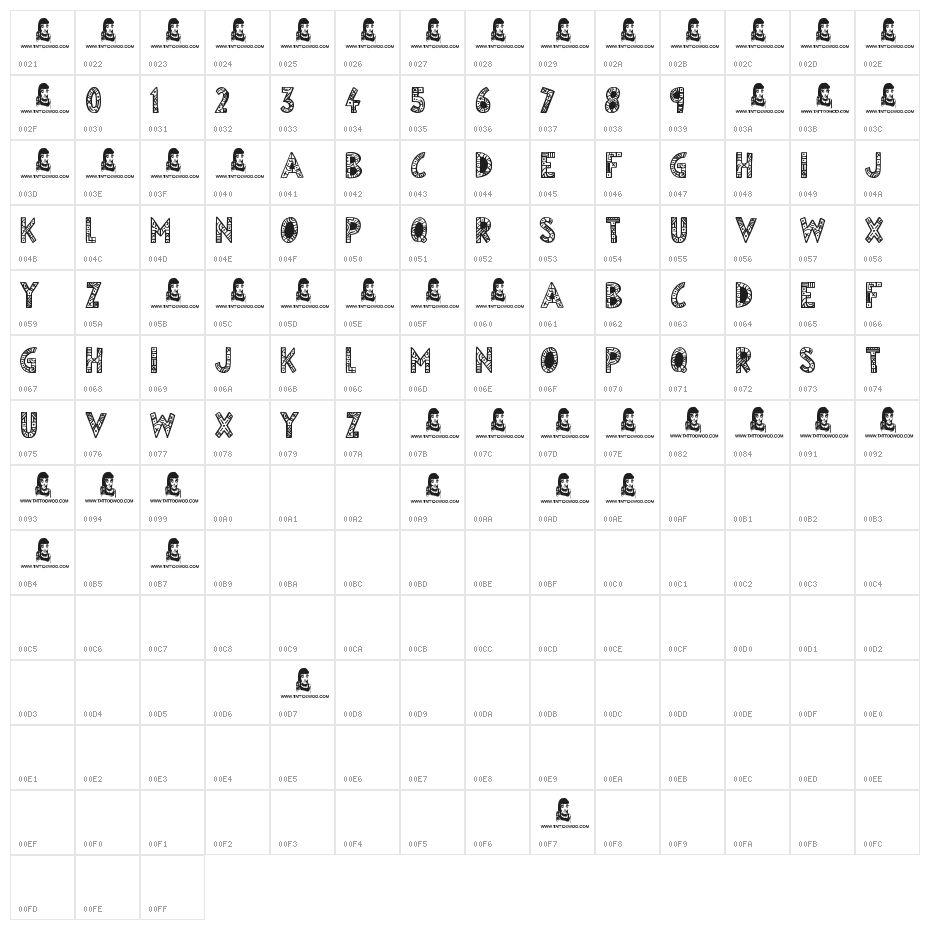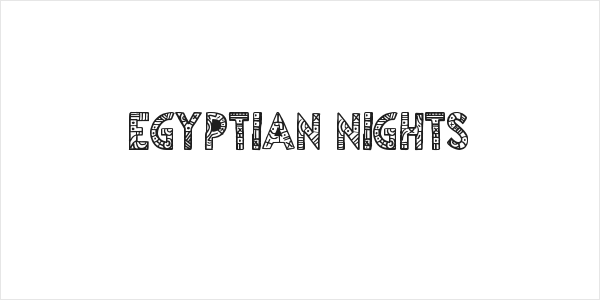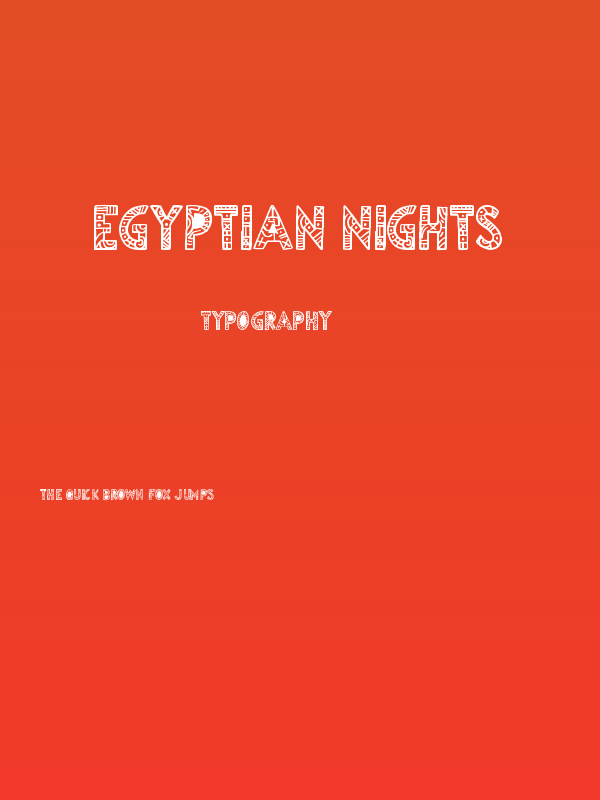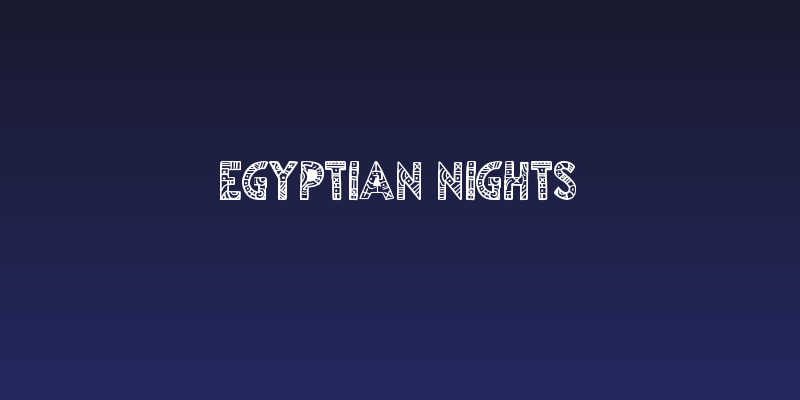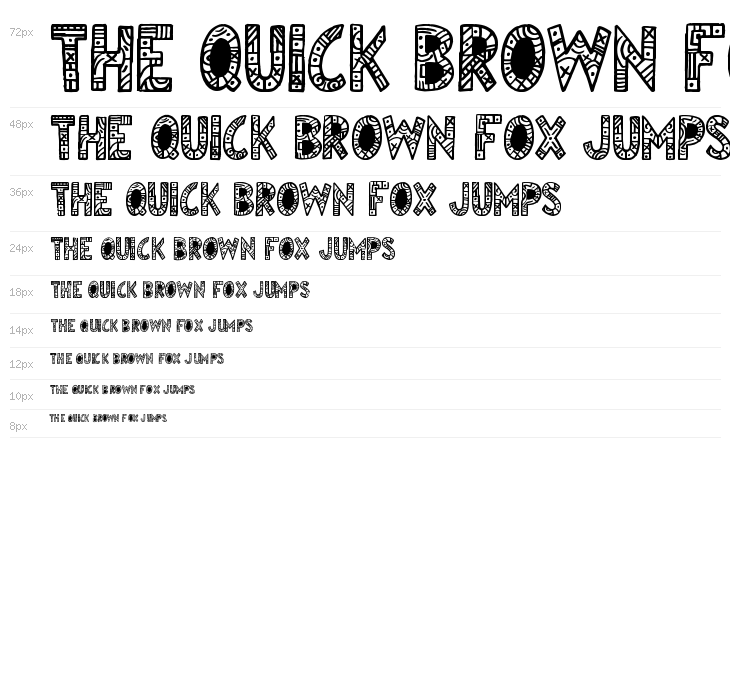
Egyptian Nights Font
Egyptian Nights Description
This font features a bold and decorative style with intricate patterns and geometric shapes filling each character. The uppercase letters are designed with a playful yet structured aesthetic, incorporating elements like stripes, dots, and zigzags. The numbers follow the same decorative theme, ensuring consistency across the typeface. Each character is distinct, making it ideal for eye-catching designs. The font's unique style draws inspiration from ancient motifs, giving it an exotic and artistic flair. Its boldness and decorative nature make it suitable for projects that require a strong visual impact.
| Proposed Projects | Ideal for posters, album covers, event invitations, and branding that requires a unique and artistic touch. |